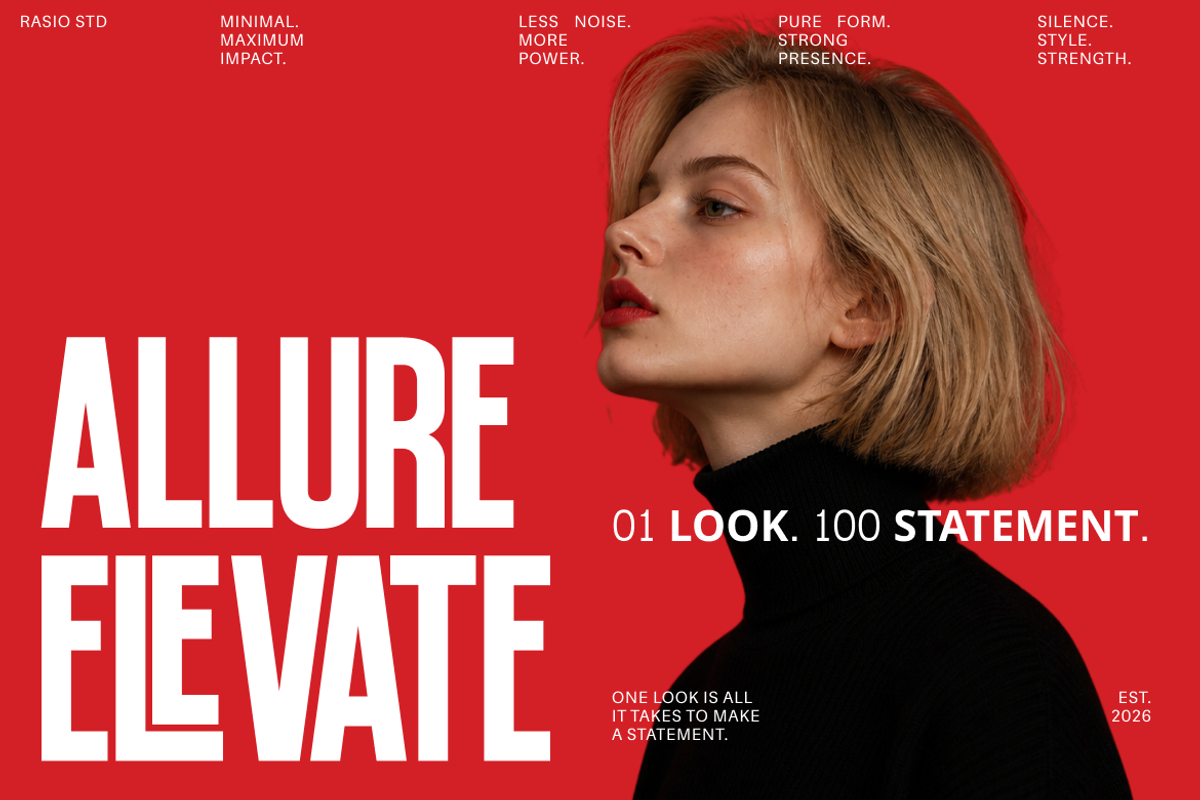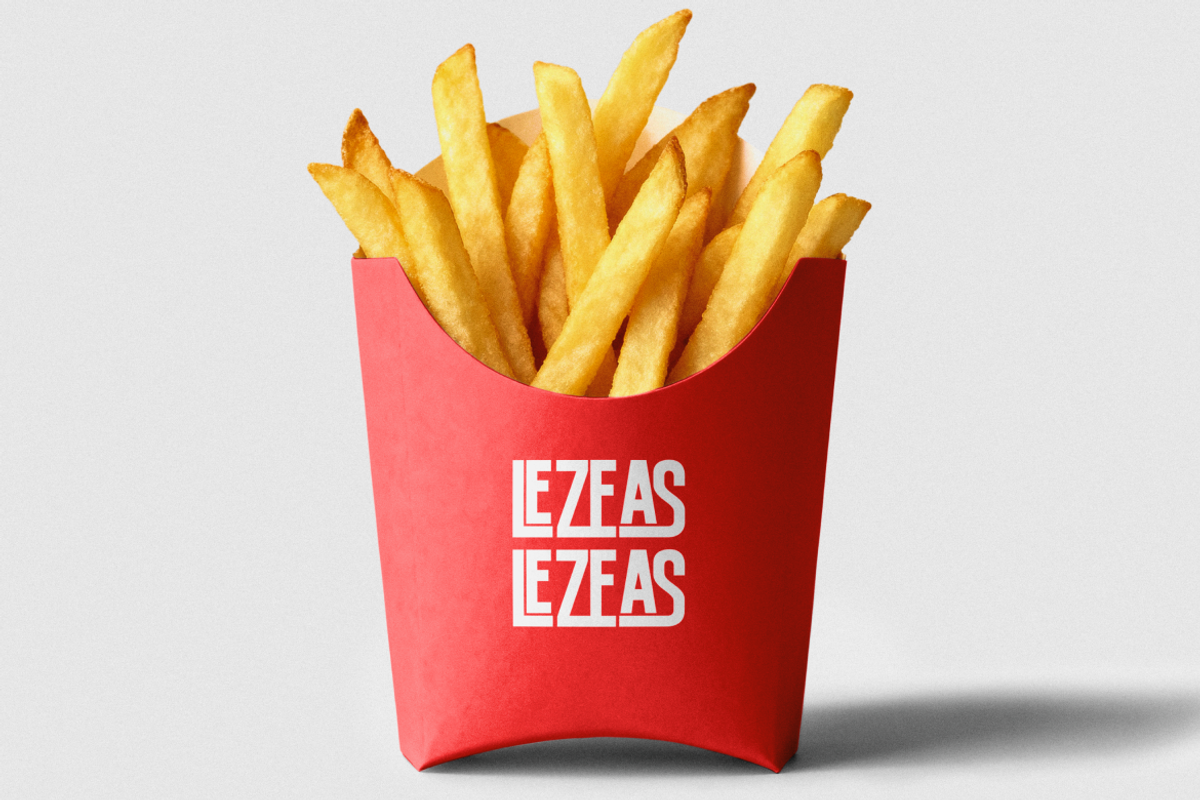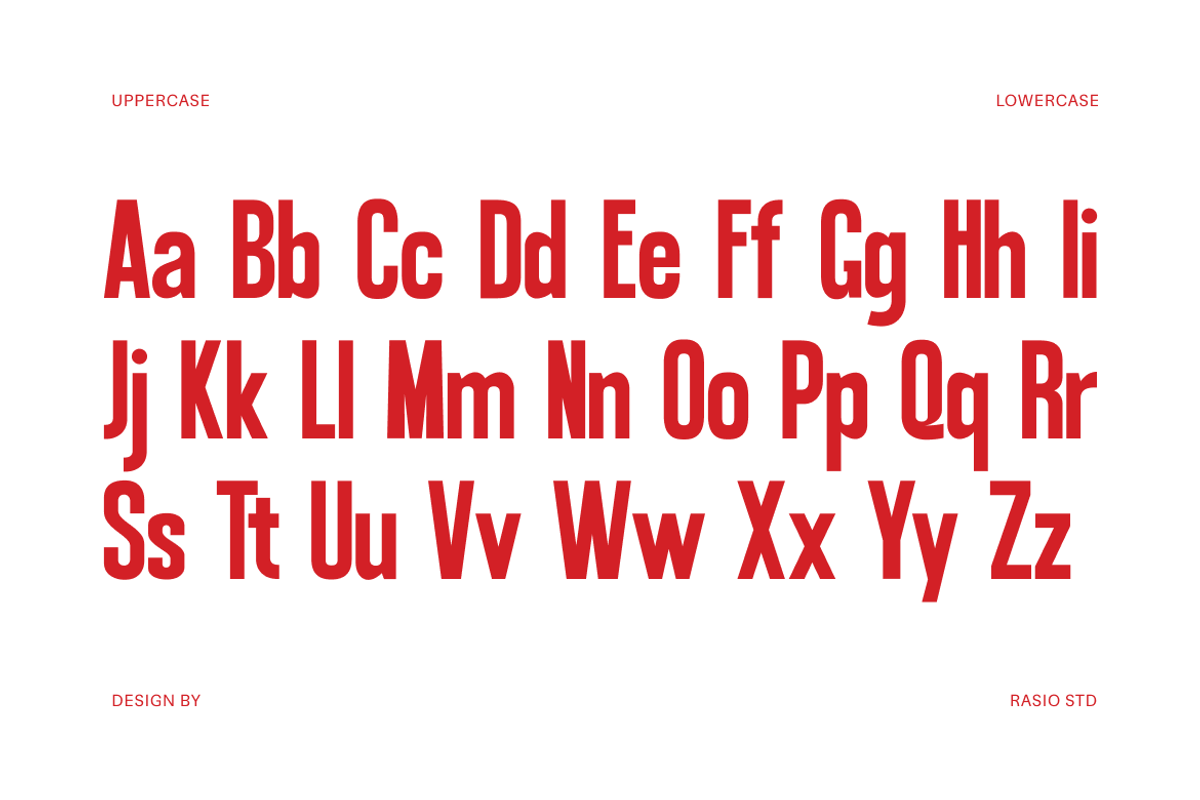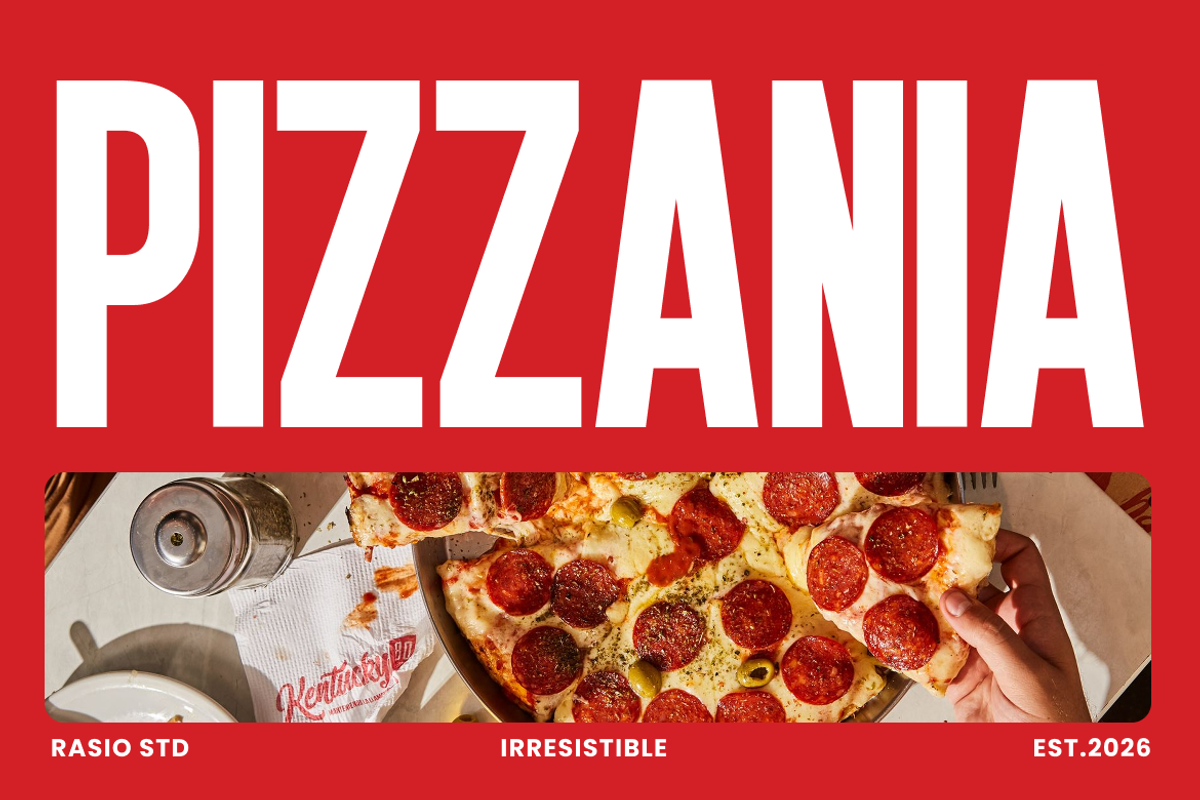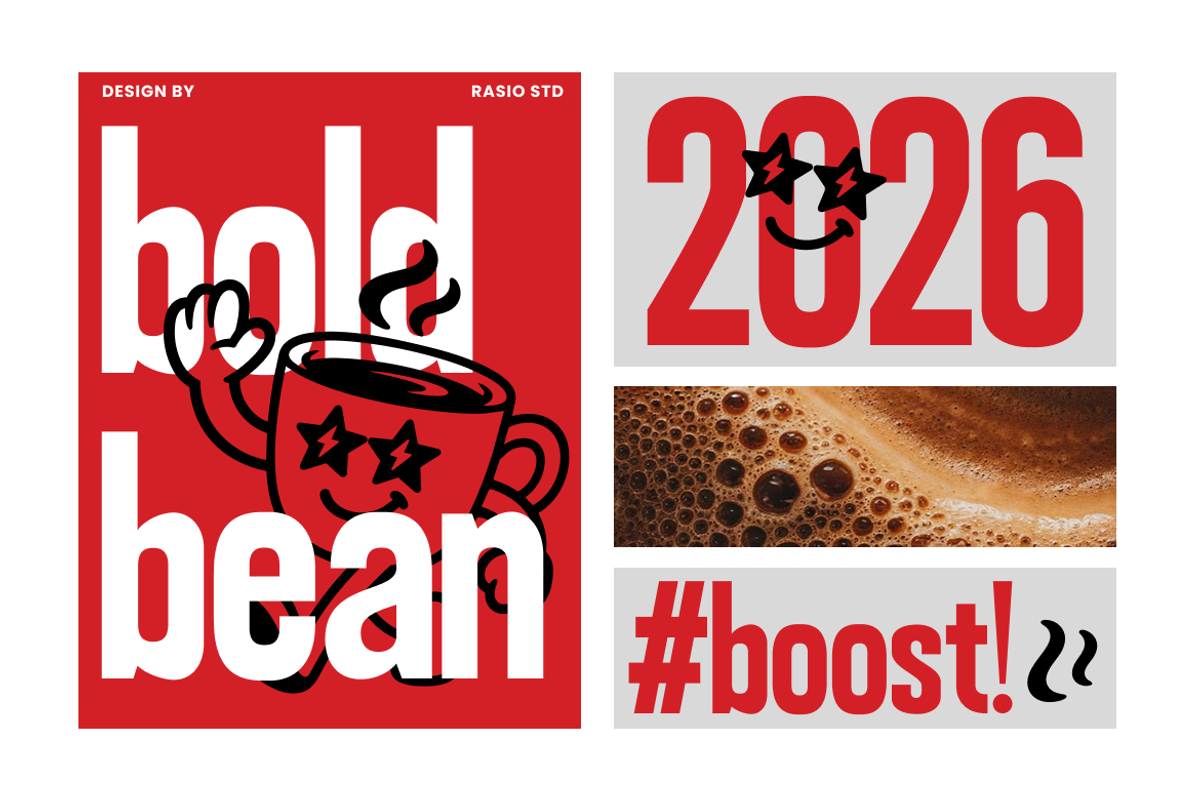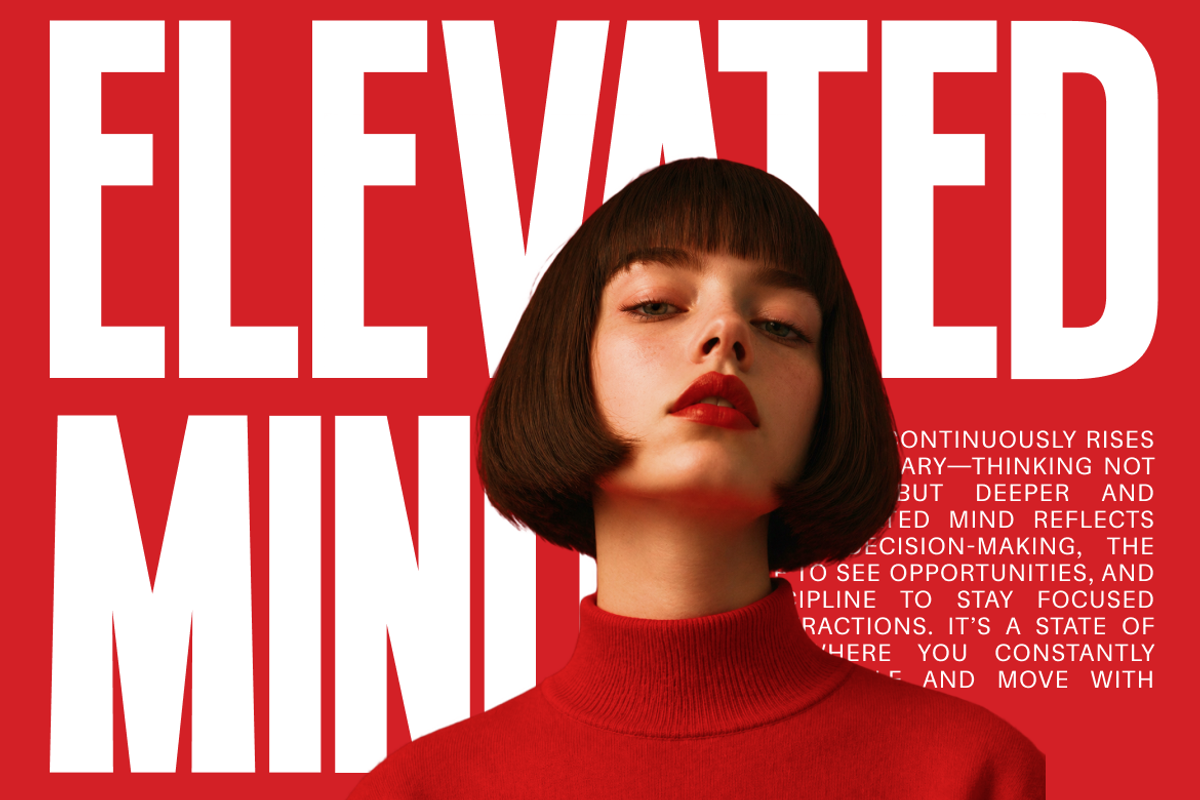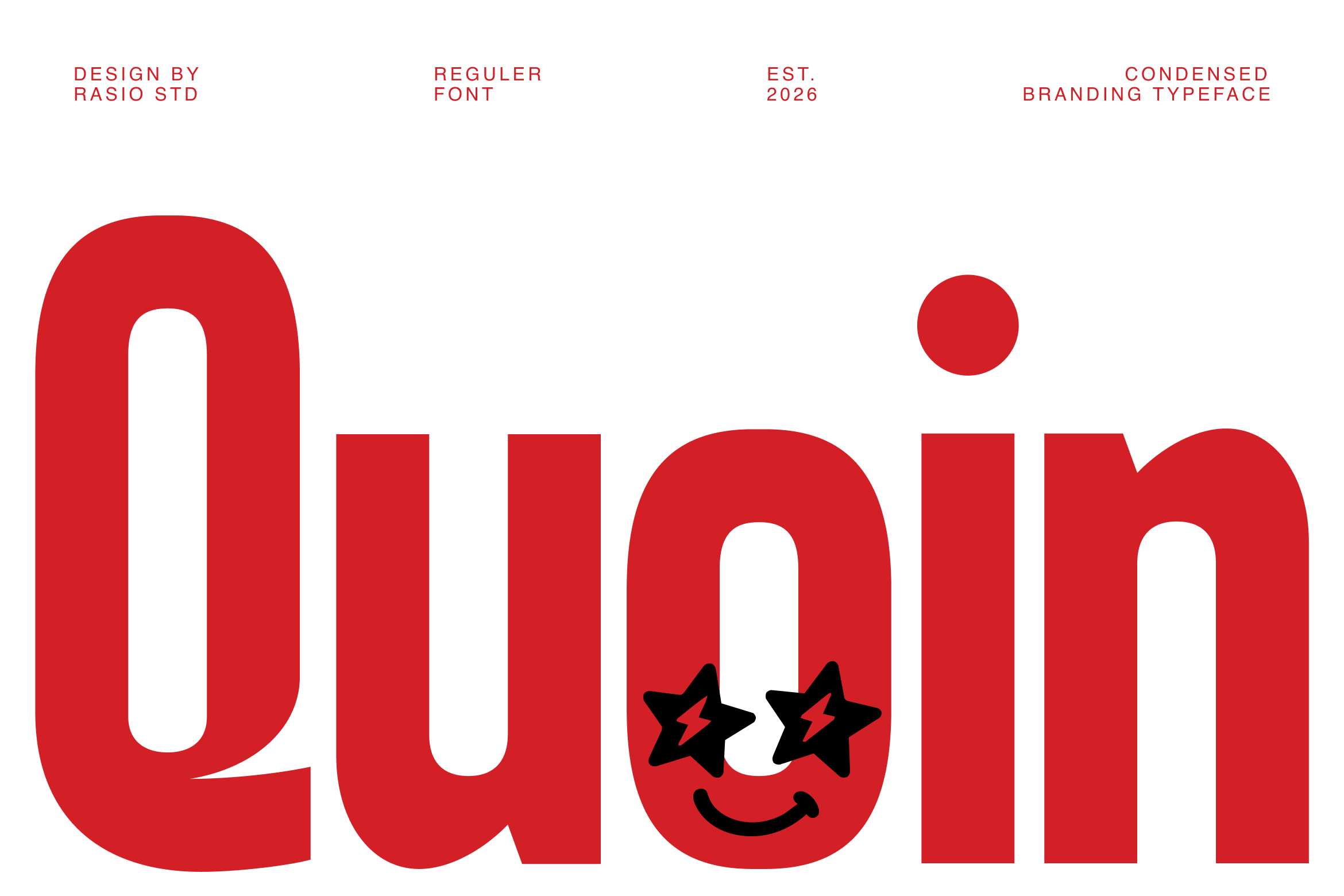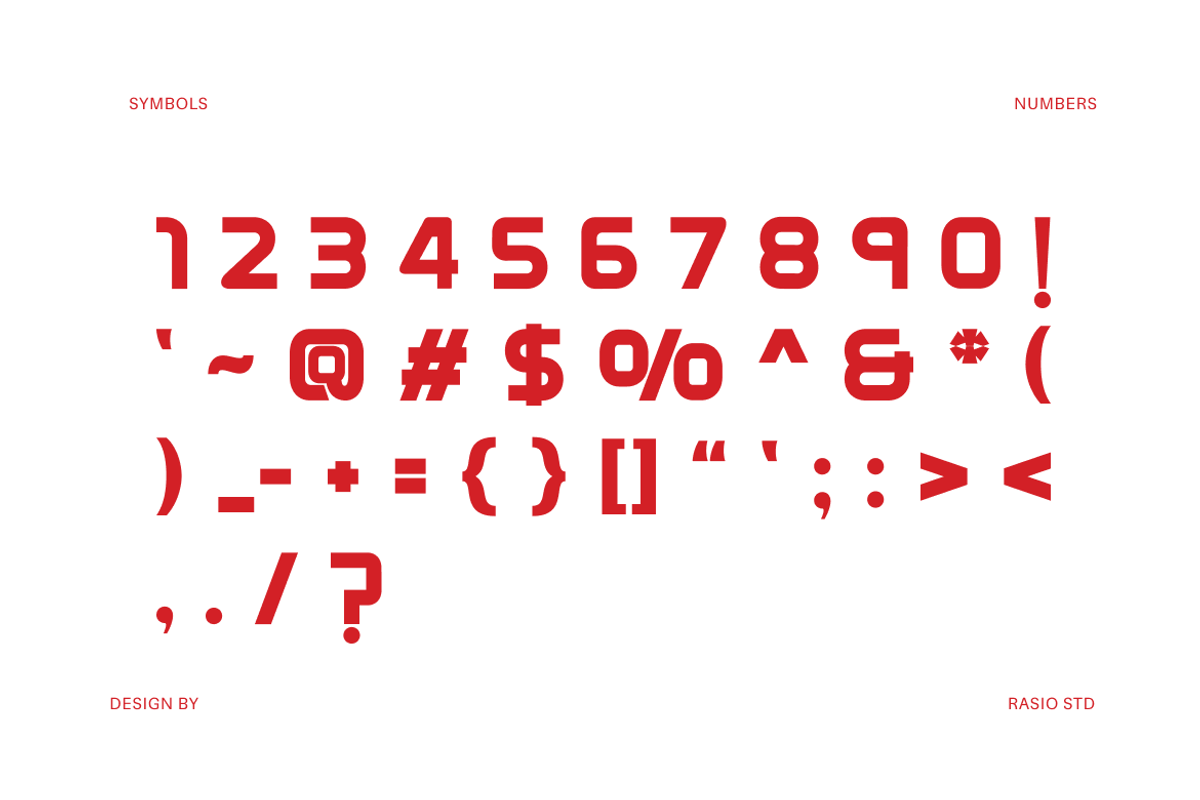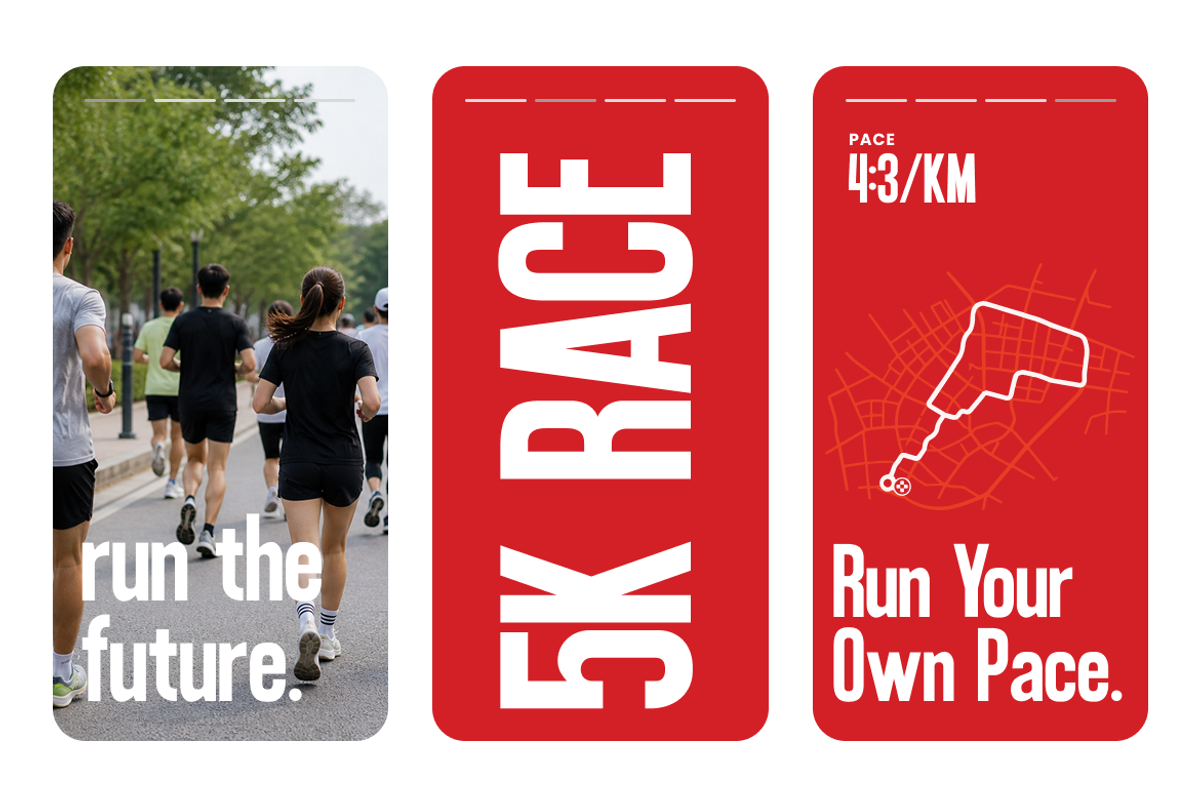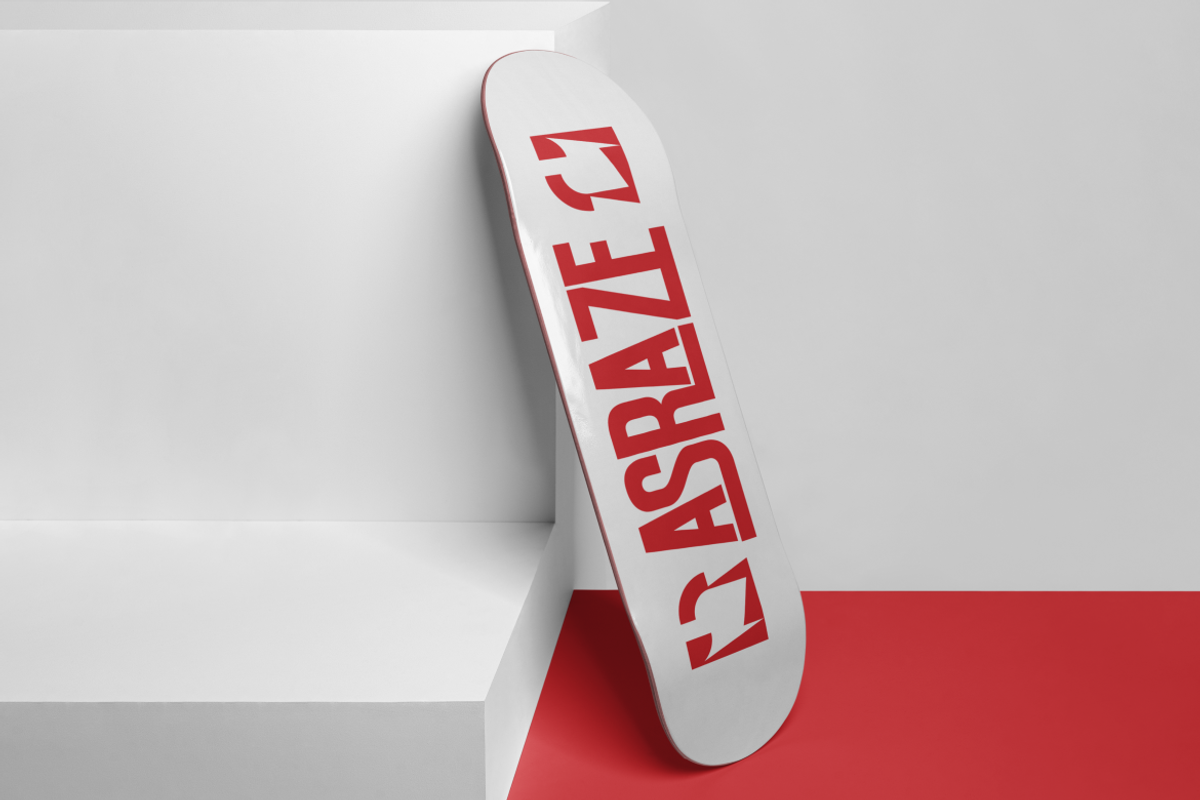
Quoin Condensed Typeface Font
Quoin Condensed Sans Serif showcases a bold condensed structure with clean geometric proportions and strong vertical rhythm. The typeface features tall characters, smooth curves, and compact spacing that create a striking modern branding appearance while maintaining excellent readability. Includes uppercase, lowercase, numerals, punctuation. Perfect for posters, coffee branding, packaging, editorial headlines, urban merchandise, and modern advertising layouts with a confident industrial aesthetic.
Quoin Condensed Sans Serif works perfectly for branding systems, coffee packaging, streetwear labels, editorial headlines, poster campaigns, restaurant identities, merchandise graphics, digital advertising, and modern social media visuals. Its condensed proportions and bold visual impact make it highly effective for layouts that require strong readability and contemporary character.
Bold condensed sans serif structure with strong vertical proportions
Rounded inner corners and smooth curves for a playful modern feel
Thick consistent strokes that create powerful visual impact
Compact letterforms optimized for headlines and branding layouts
Clean geometric construction with energetic contemporary character
Bold branding systems for energetic lifestyle and youth-focused products
Coffee shop identities, streetwear graphics, and modern food packaging
Poster layouts, music covers, and sporty editorial headline designs
Social media campaigns and digital advertisements with playful impact
Modern logo design, merchandise graphics, and contemporary packaging concepts
Supports numerals, punctuation, and extensive symbol set
Bring bold energy to your design with Quoin Condensed Typeface Font